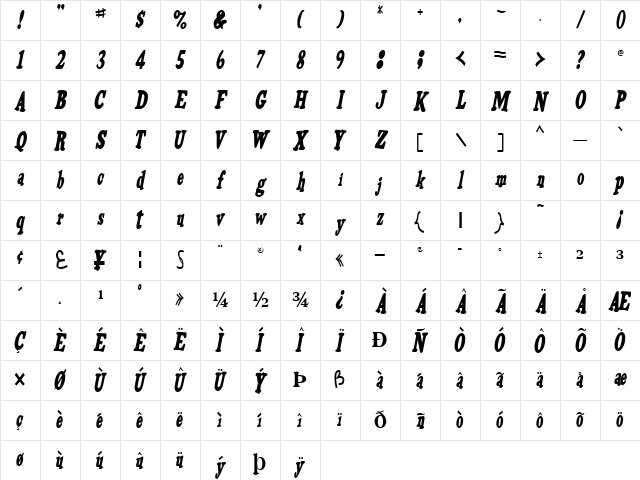
VoldiFinal96 Regular
VoldiFinal96 Family
Design Context for VoldiFinal96
VoldiFinal96 is a composed and adaptable typeface that performs quietly and consistently across a wide range of design contexts.
Pro Tip: Use VoldiFinal96 in both headline and body roles to test its range before committing to a single application.